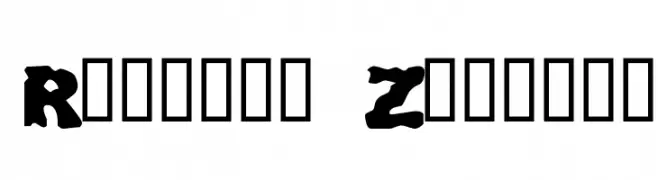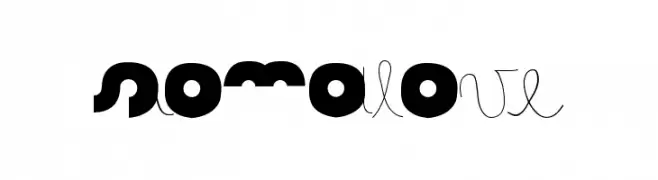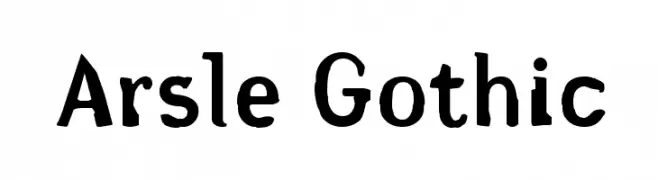
( Fonts by Steve Ferrera )
A playful, hand-drawn font with dynamic and irregular letterforms.
( Fonts by Spork Thug Typography - Josh Wilhelm - www.lifewithouttaffy.com/taffy/blog )
A bold, rugged font with jagged edges and a distressed appearance, ideal for impactful designs.
( Fonts by Dieter Steffmann )
An ornate, decorative font with intricate floral patterns in each letter.
A bold, playful font with high contrast and rounded shapes, perfect for decorative use.
( Fonts by www.typodermicfonts.com - Ray Larabie )
A bold, geometric font with a strong, athletic appearance.
( Fonts by TarmSaft Font Factory - http://www.aska.nu/tarmsaft/ )
A bold, Gothic-inspired font with a modern yet classic appeal.
( Fonts by Gyom Seguin - last-soundtrack.daportfolio.com )
A bold, distressed font with a rugged, grunge appearance.